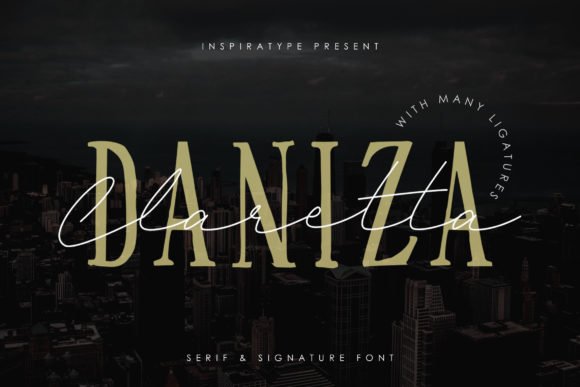
Meet Your New Best Font Friend
There’s nothing quite like the thrill of opening up your design software and discovering the perfect font for your project. For designers, finding that elusive combination of style and versatility can be a game-changer. And that’s exactly what the Daniza Claretta Font brings to the table – a tasteful blend of strong serifs and gorgeous script that’s guaranteed to elevate your designs.
Whether you’re creating greeting cards, stationery, or anything in between, the Daniza Claretta Font is the perfect companion. Its PUA encoding makes it easy to access a wealth of special features, including alternate glyphs and ligatures. This means you can add a touch of personality to your designs with ease, and really make them stand out from the crowd.
So why settle for a generic font when you can have a font that’s truly one-of-a-kind? The Daniza Claretta Font is a valuable addition to any designer’s toolkit, offering endless possibilities for creativity and self-expression.
Daniza Claretta Font Key Features
- Unique Characteristics: Elegant script font with a mix of modern and classic styles, ideal for invitations, wedding stationery, and other formal events.
- Language Support: Supports multiple languages, including Latin-based alphabets and Cyrillic.
- Font Width: Medium to wide, suitable for titles, headings, and short paragraphs.
Designer Review: Daniza Claretta Font
✨ I was excited to dive into the Daniza Claretta Font, and I must say, it has some wonderful qualities that make it a great choice for designers. Firstly, the elegant and sophisticated feel of the font is perfect for creating a luxurious and high-end aesthetic in any design project. The intricate details and ornate flourishes add a touch of whimsy and romance, making it ideal for branding, invitations, and other creative endeavors.
✨ The font is also highly versatile, with a wide range of applications, from headlines to body text. It’s available in various weights and styles, allowing designers to mix and match to achieve the desired look. Additionally, the font is highly legible, making it easy to read, even at smaller sizes.
⚠️ One potential drawback of the Daniza Claretta Font is its limited compatibility with certain operating systems and software. Some designers may experience issues with font rendering or compatibility, which can be frustrating. Additionally, the font may not be suitable for large blocks of text, as the intricate details can become overwhelming.
Overall, I’m impressed with the Daniza Claretta Font. While it may have some limitations, its unique style and versatility make it a valuable addition to any designer’s toolkit. With a little creativity and experimentation, designers can unlock the full potential of this beautiful font.
- Elegant and sophisticated feel
- Intricate details and ornate flourishes
- Highly versatile and adaptable
- Available in various weights and styles
- Highly legible
Practical Application Guide for Daniza Claretta Font
Tip: Use the Daniza Claretta Font for headings and titles to add a touch of elegance to your design.
Tip: Use the Daniza Claretta Font for creative typography projects, such as wedding invitations or book covers.
Tip: Use the Daniza Claretta Font for presentations, reports, and other business materials to add a touch of sophistication.
The Daniza Claretta Font is ideal for:
- Book covers and book design
- Editorial design and publishing